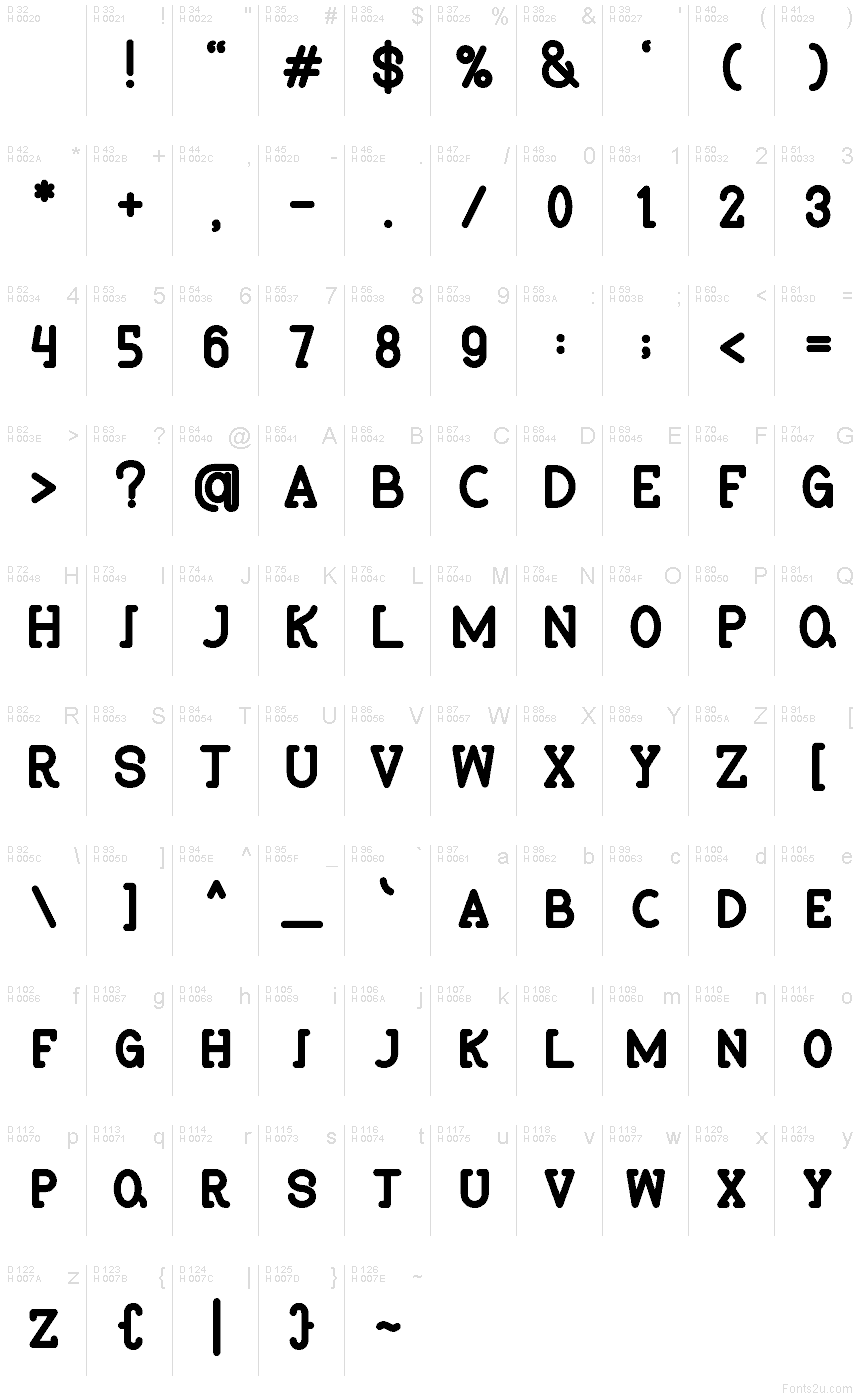
Snowy Christa
Snowy Christa font by Pian45 Studio is a free decorative display typeface that wraps every word in a cozy, festive mood. Rounded, chunky letterforms feel like they’ve been cut from thick felt or shaped from soft snow, with playful curves that stay highly readable even at smaller headline sizes. The rhythm is steady and friendly, giving your winter messages a warm, hand-crafted personality instead of harsh, geometric cold.
Using Snowy Christa, holiday campaigns instantly gain a cheerful, family-friendly voice that works beautifully for Christmas cards, gift tags, product packaging, kids’ book covers, party invitations, and seasonal social posts. This free font shines when used large for short, punchy phrases; pair it with a clean sans serif in smaller text to keep things clear while Snowy Christa brings all the charm.